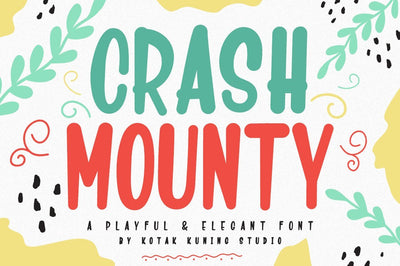
Crash Mounty
Introducing Crash Mounty Font. A playful and unique font. It has a unique and different style and will give your design a fun touch.
Crash Mounty would be perfect for logos & branding, photography, watermark, social media posts, advertisements, invitation, product designs, label, stationery, wedding designs, product packaging, special events or anything that need handwriting taste.
- Crash Mounty includes capital and lowercase letters, Alternates, and Ligatures
- Numbers + punctuation
- Foreign language support